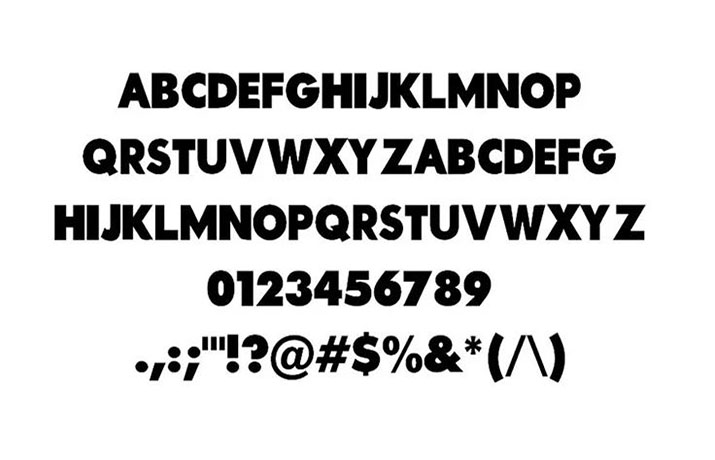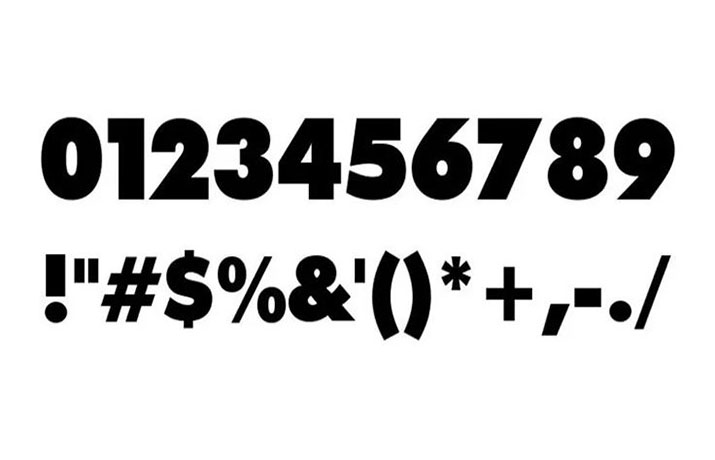
Skam Font is a display sans serif typeface that comes in open forms and regular spacing. Franco Fernández took charge of designing and releasing it in July 2017.
Due to its neat and highly legible shape, you can use it for various projects including branding, web design, magazines, brochures, body text, headings, branding, and print.
And, It has been almost three years now but many designers are still working with it continuously. Because it has a solid sans-serif texture with a fancy rounded corner in some letters.
“Skam typeface is available in a single regular style along with Open Type features. Moreover, this regular style possesses more than 250 glyphs and vast language support.”
- Book covers, product designs, special event cards, movie posters, game titles, headers, banners, flyers, brand logos, birthday cards, invitation cards, greeting cards, print-on t-shirts, website developments, book covers, game graphics, paragraphs, web content, and many more can all be made with this assistance.